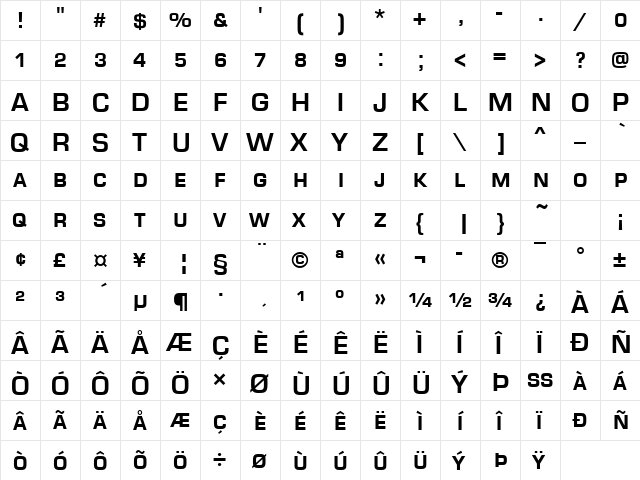
Eurostile Becker Discaps Bold Regular
Design Context for Eurostile Becker Discaps Bold Typeface
Eurostile Becker Discaps Bold is a composed and adaptable typeface that performs quietly and consistently across a wide range of design contexts. Its bold stroke weight gives it real presence on the page.
Pro Tip: Use Eurostile Becker Discaps Bold in both headline and body roles to test its range before committing to a single application.